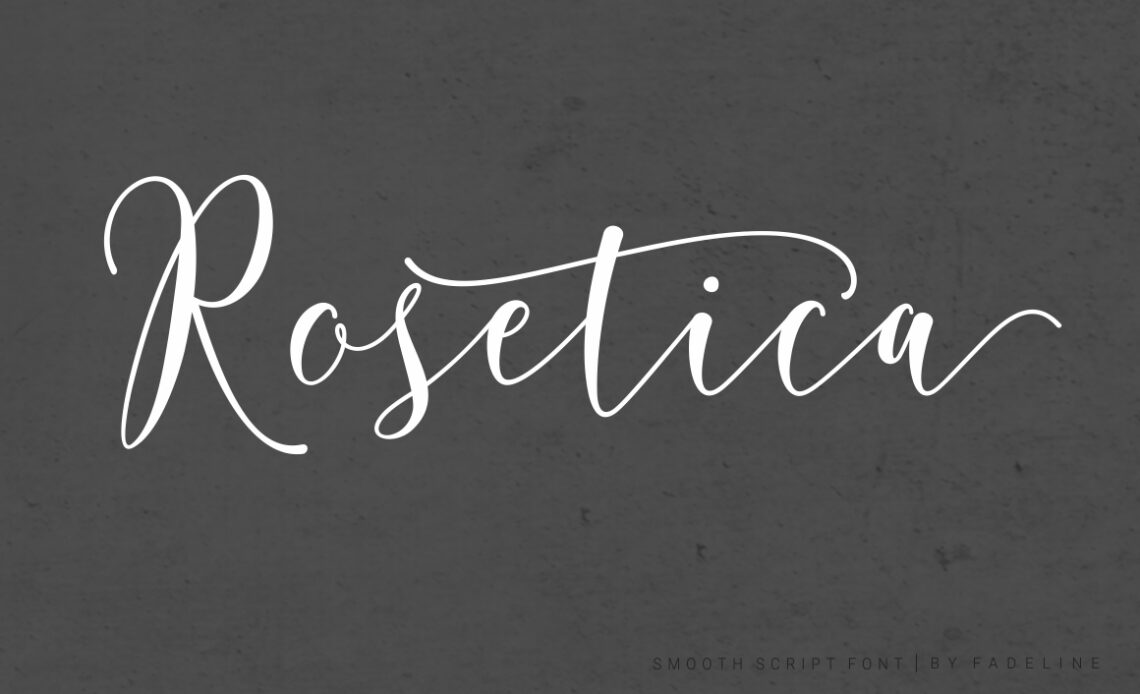
Step into a world of elegance and charm with Rosetica Font, an exquisite script typeface that embodies the timeless beauty of handwritten letters. Crafted with meticulous care by the renowned font foundry, FadeLine, Rosetica is a symphony of smooth curves, delicate swashes, and graceful strokes that will enchant your creative projects.
With its impressive selection of over 700 meticulously crafted glyphs, Rosetica Font offers endless possibilities for self-expression. From whimsical invitations and heartfelt love letters to captivating logos and striking social media posts, Rosetica's versatile charm knows no bounds. Its intricate details and natural flow add a touch of sophistication and personalization to any design, making it the perfect choice for creating elegant and timeless masterpieces.
Immerse yourself in the world of Rosetica Font and discover the boundless beauty it holds. Allow your imagination to soar as you explore the endless creative possibilities that lie within its digital embrace. Let Rosetica's enchanting script grace your designs, adding a touch of elegance and allure that will leave a lasting impression. Experience the joy of crafting designs that captivate and inspire, with Rosetica Font as your trusted companion.